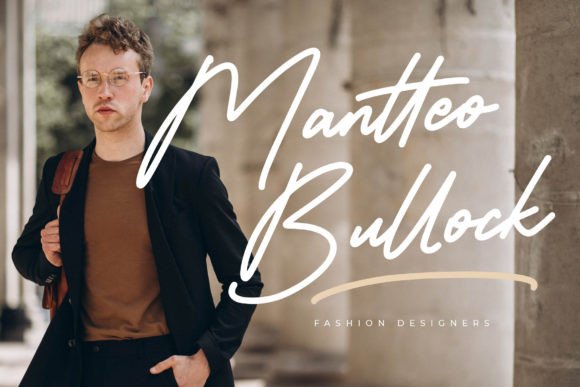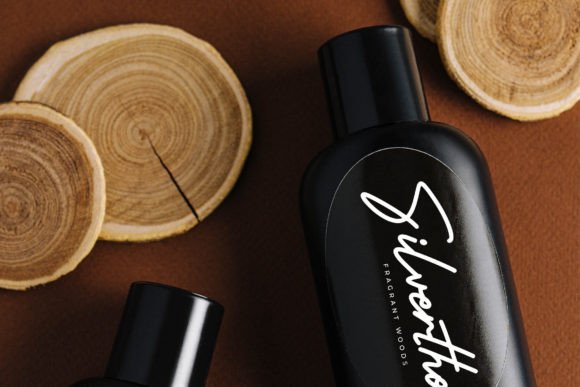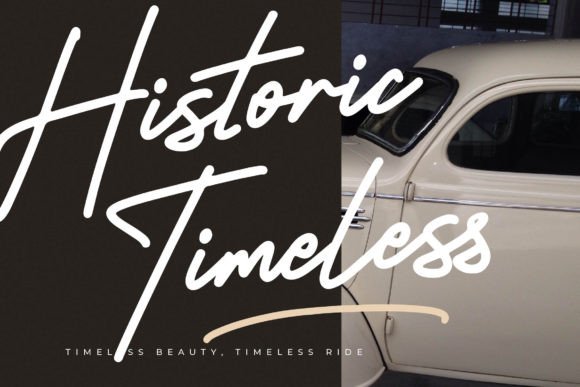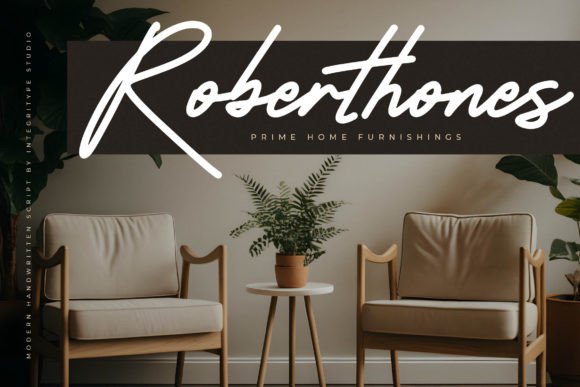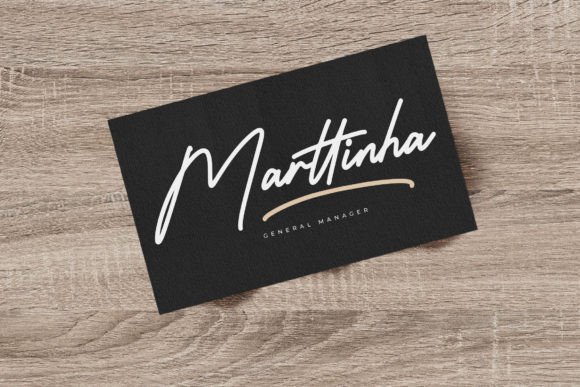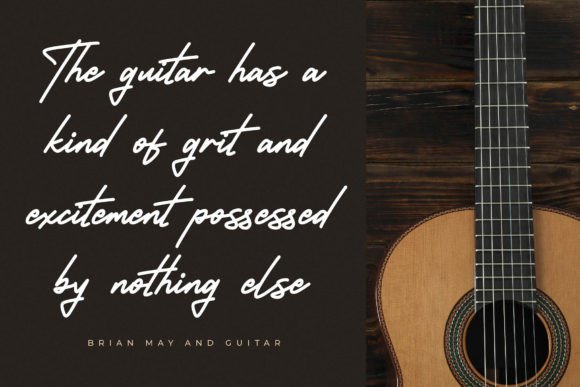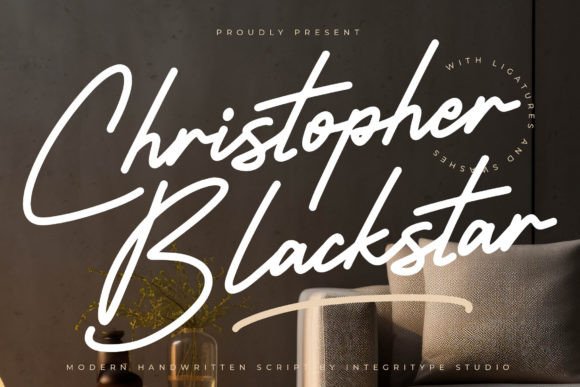
Introducing Christopher Blackstar Font: A Modern Handwritten Style for Digital Spaces
In the world of digital design, typography plays a crucial role in capturing the essence of a brand or message. Among the myriad of fonts available, Christopher Blackstar Font stands out as a unique and modern handwritten font, perfectly suited for adding a personal and inviting touch to digital spaces. In this article, we’ll explore the characteristics, uses, and benefits of Christopher Blackstar Font, making it a must-know for designers and crafters alike.
What is Christopher Blackstar Font?
Christopher Blackstar Font is a contemporary handwritten font designed to bring a sense of warmth and personality to digital platforms. Its modern aesthetic makes it an ideal choice for website headers, banners, and hero images. The font’s unique style is characterized by its fluid strokes, varying line widths, and a friendly demeanor that instantly connects with viewers.
Key Features of Christopher Blackstar Font
- Modern Handwritten Style: Christopher Blackstar Font boasts a fresh and modern look, deviating from traditional fonts and offering a unique personality.
- Versatility: Its adaptability makes it suitable for a wide range of design projects, from branding and advertising to web design and social media graphics.
- Easy to Read: Despite its artistic nature, the font maintains readability, ensuring that messages are conveyed clearly and effectively.
- Customizable: Designers can easily manipulate the font to fit their project’s tone and style, making it a versatile tool in any creative arsenal.
Uses of Christopher Blackstar Font
The versatility of Christopher Blackstar Font allows it to be used across various digital platforms and design projects. Some of its primary applications include:
- Website Headers and Banners: Elevate your website’s visual appeal with a compelling header or banner that captures visitors’ attention.
- Hero Images: Use Christopher Blackstar Font to add a personal touch to hero images, making them more engaging and memorable.
- Branding and Logo Design: Create a distinctive brand identity with a custom logo or wordmark that reflects your brand’s personality.
- Social Media Graphics: Stand out on social media with custom graphics that utilize the unique style of Christopher Blackstar Font.
Benefits of Using Christopher Blackstar Font
Incorporating Christopher Blackstar Font into your design projects comes with several benefits:
- Unique Aesthetic: Differentiate your designs with a font that offers a fresh and modern aesthetic.
- Emotional Connection: The handwritten nature of the font helps create an emotional connection with viewers, making your message more relatable.
- Time-Saving: With its versatility and readability, Christopher Blackstar Font saves designers time in selecting and customizing fonts for their projects.
Christopher Blackstar Font is a powerful tool for designers and crafters looking to infuse their digital projects with a personal and inviting touch. Its modern handwritten style, versatility, and readability make it an excellent choice for a wide range of applications. By incorporating Christopher Blackstar Font into your design repertoire, you can create visually appealing and engaging digital spaces that resonate with your audience.
Whether you’re designing a website, crafting a brand identity, or creating social media graphics, Christopher Blackstar Font is sure to elevate your projects and help you stand out in the digital landscape.